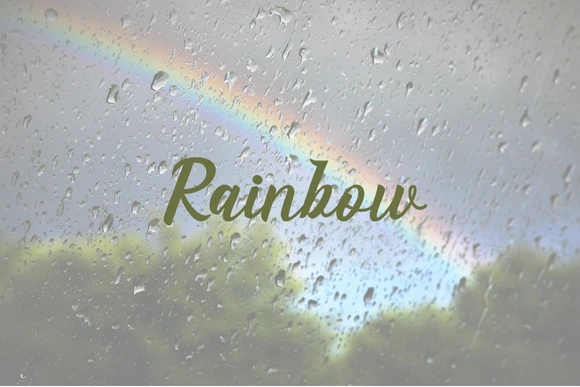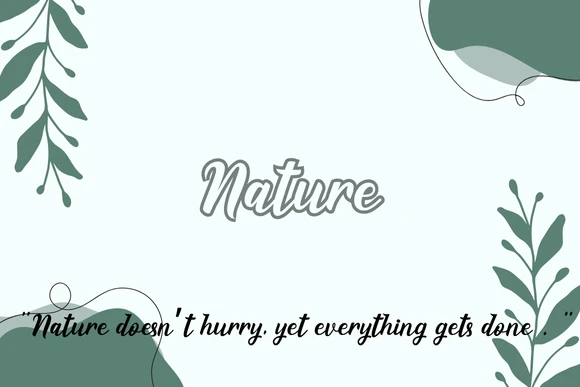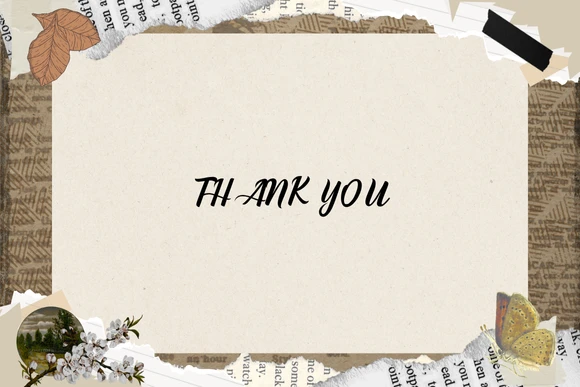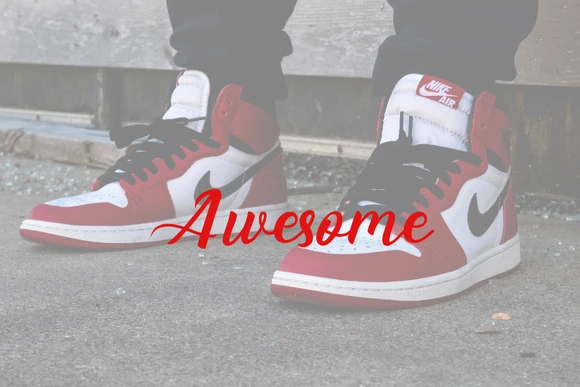
Add grace and sophistication to your designs with Beautiful Fonts ā a versatile collection of elegant handwritten and script typefaces designed to make every project shine. Its flowing curves and refined letterforms are perfect for creatives, bloggers and small businesses looking to bring a polished yet approachable look to their text.
Use Beautiful Fonts for wedding invitations, greeting cards, product packaging, social media graphics, motivational quotes, branding materials, logos and blog headers. With easy readability and multiple stylistic options, this typeface is ideal for both print and digital applications.